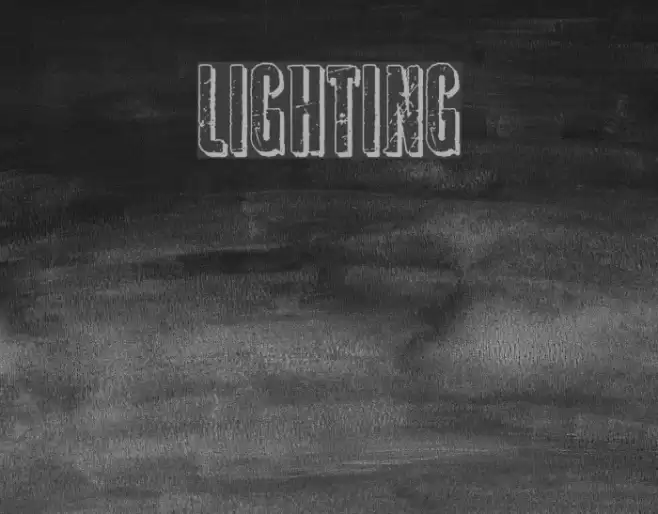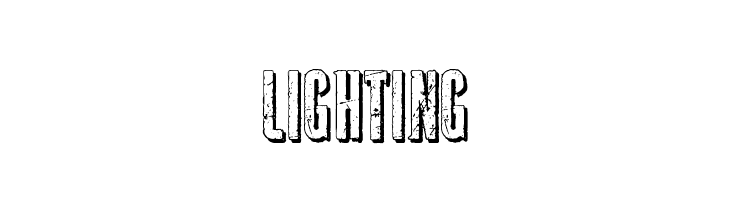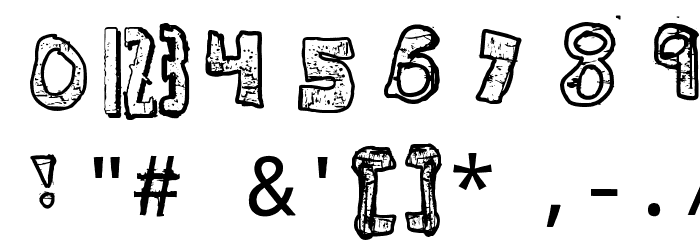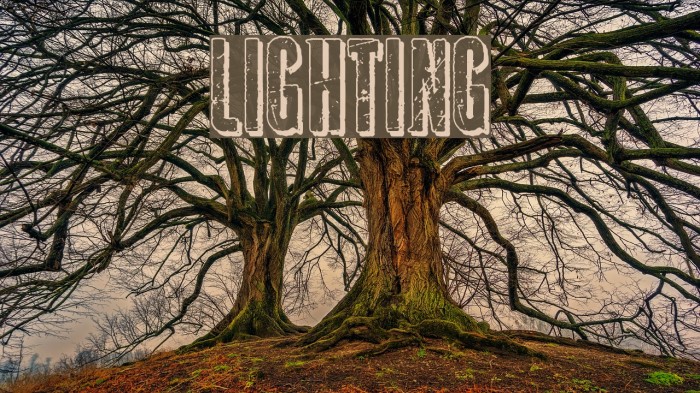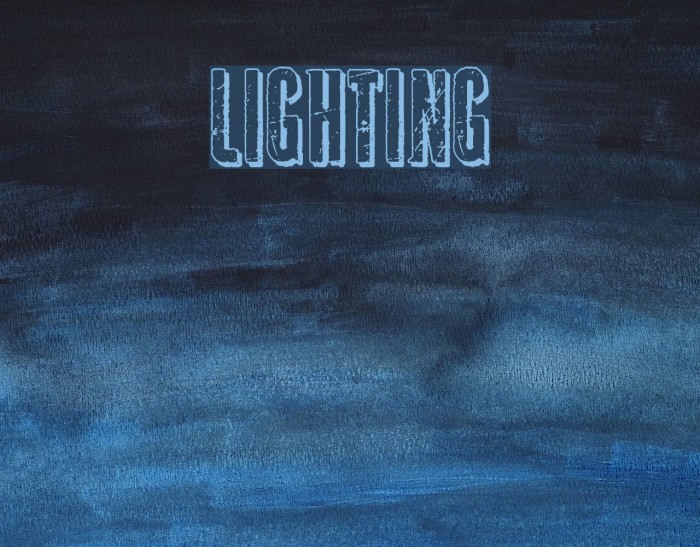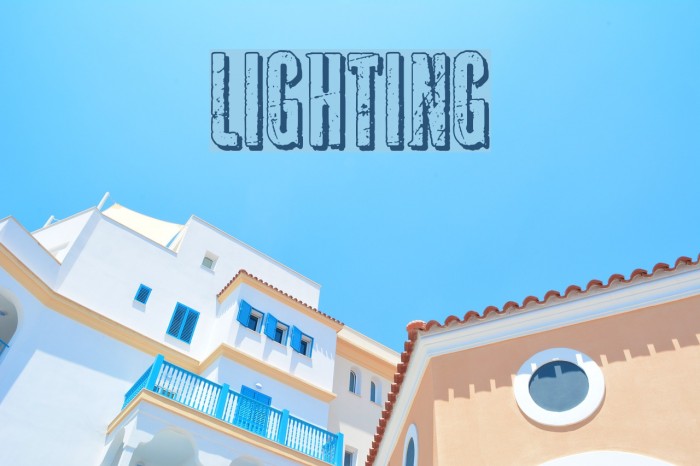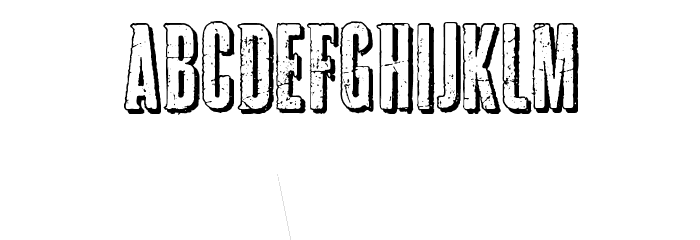
Lighting Font
Lighting Description
This font features a rugged, distressed appearance with a bold, impactful presence. The characters have a textured, weathered look, giving them a vintage and industrial feel. The uppercase letters are prominent and commanding, while the numerals and special characters maintain the same distressed style. The font's design suggests a sense of strength and durability, making it suitable for projects that require a bold statement. The overall aesthetic is both eye-catching and memorable, with a unique character that stands out.
A bold, distressed font with a vintage, industrial style from Uncategorized fonts.
- Proposed Projects: Ideal for posters, branding, logos, and any design requiring a strong, vintage aesthetic.
- Overall Style: Vintage, Industrial